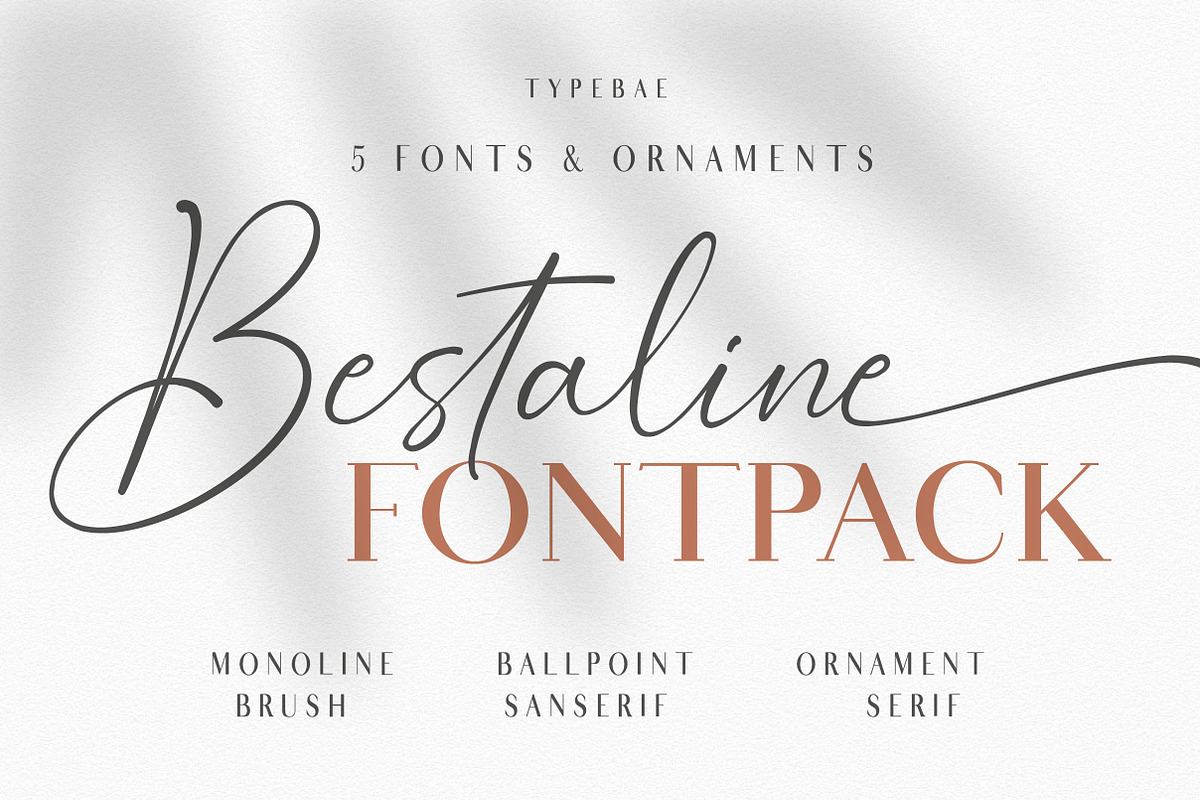
Please note, to use this font for commercial purposes, you must purchase the full version. Bestaline is a versatile font collection that includes 5 unique fonts and decorative ornaments, offering a wide range of design possibilities. From elegant script fonts to bold sans-serifs, this collection is perfect for creating logos, invitations, branding, packaging, and more. With its beautiful ornaments and stylish fonts, Bestaline adds a touch of creativity and sophistication to your projects. Test it out and enjoy free download access for personal use. Explore the full potential of Bestaline - 5 Fonts & Ornaments Free Download before purchasing the commercial license. Add artistic flair to your designs with this stunning font package.